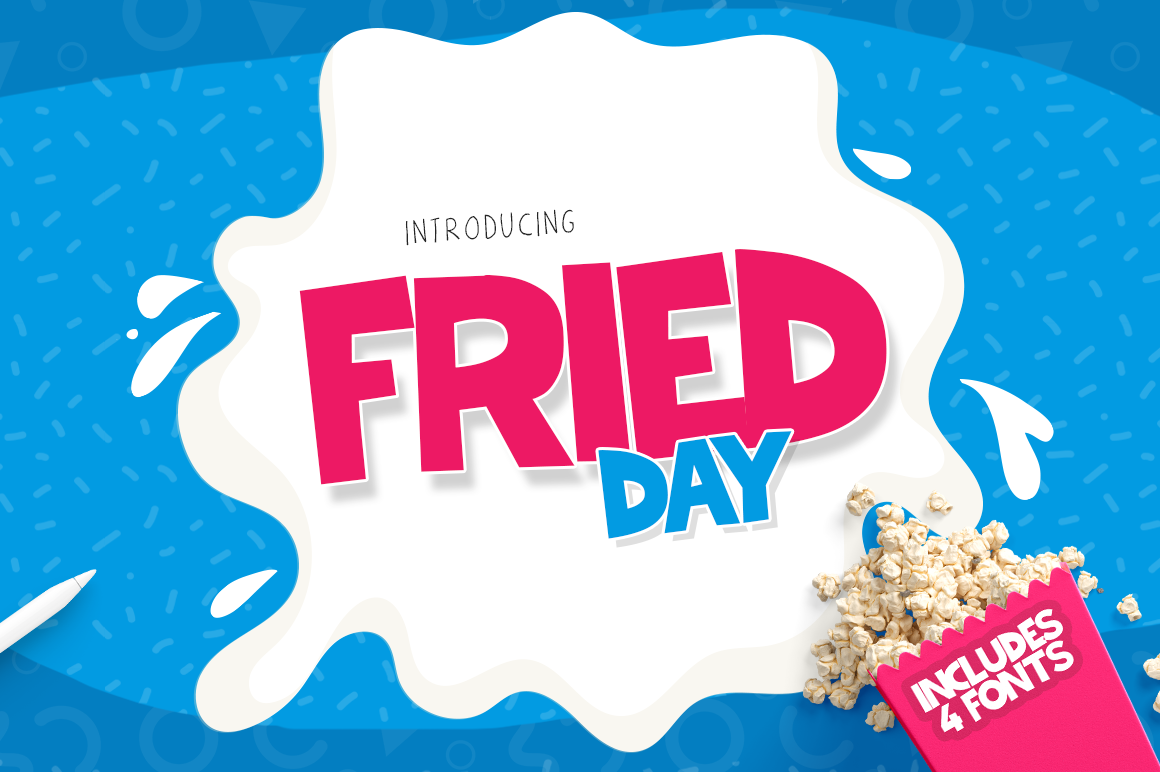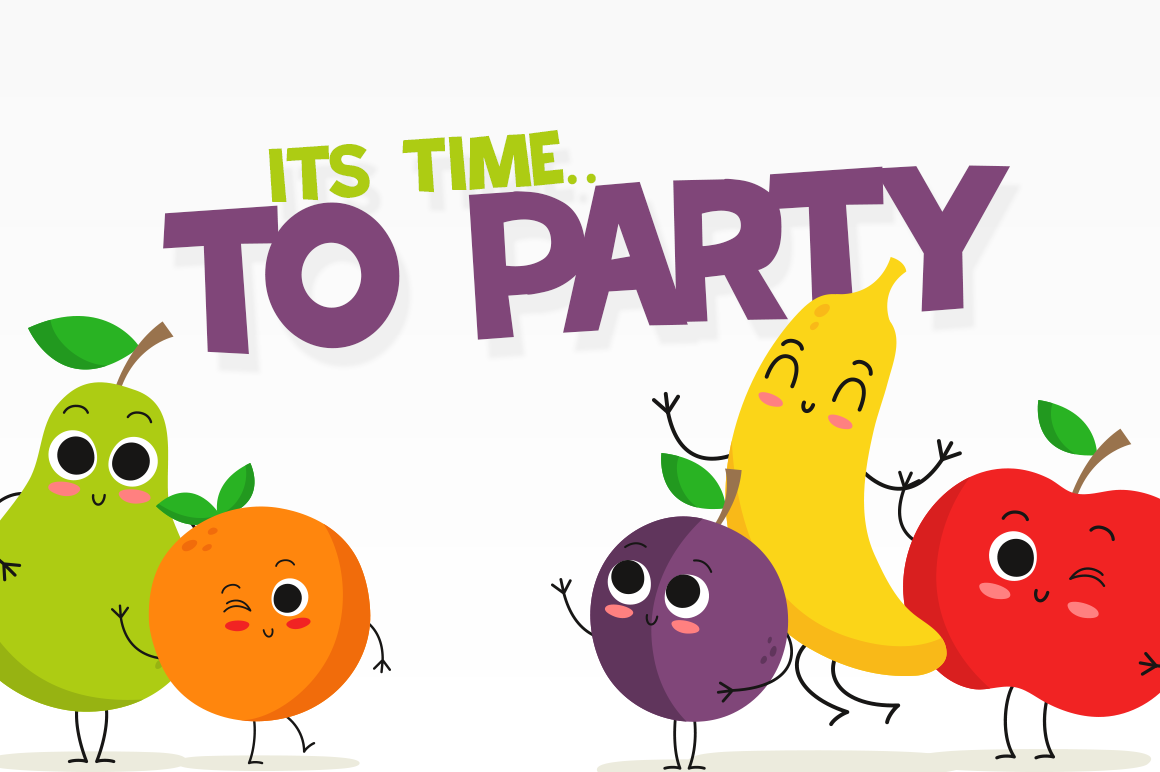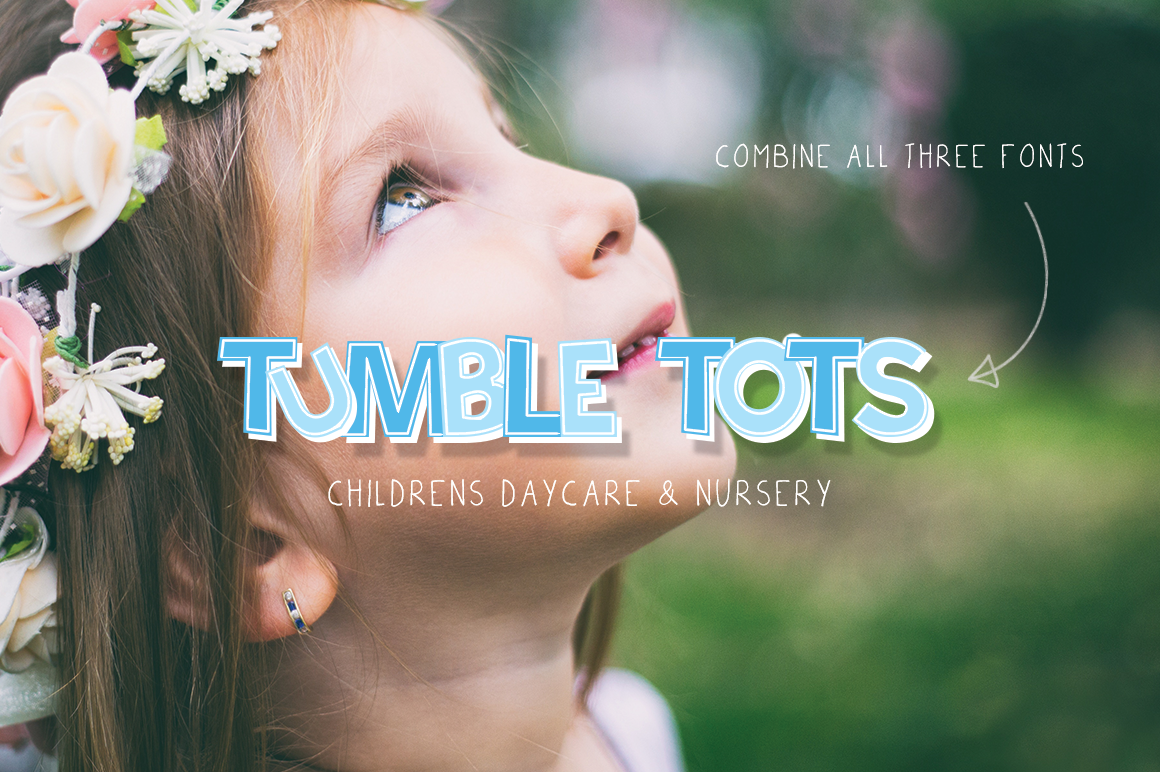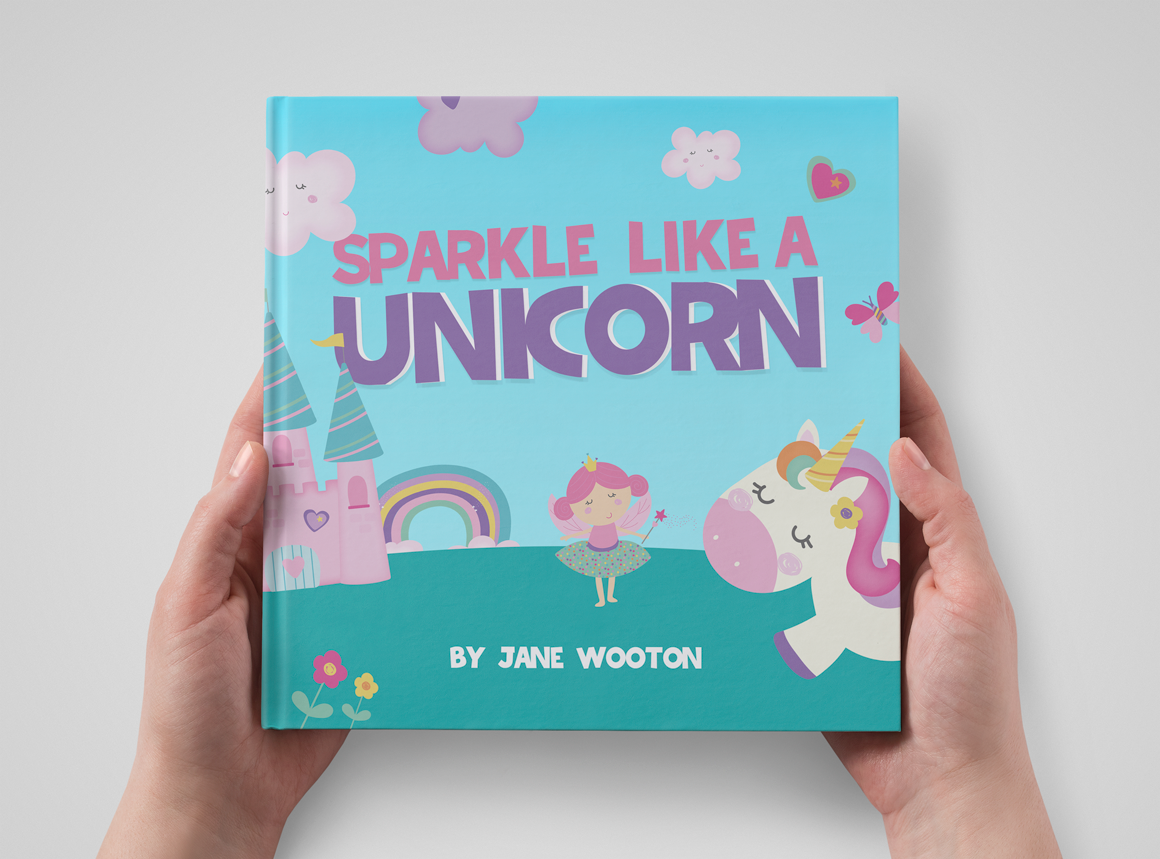
Fried Day Family Font
About the Fried Day Family Font
Welcome to the world of Fried Day Family Font, a typeface that will inspire your next great project. The Fried Day (get it?…Okay yeah, its not that funny) Font family is a brand new trio of fonts. This super cute family can be combined in a range of ways to give you a whole collection of effects for your work. Use the Regular font alone, or layer over the inner or outline fonts for different styles.
Fried Day’s playful personality makes it ideal for headlines, short text blocks on packaging, and eye-catching social media graphics. Its versatility allows for creative layering, adding visual interest to logos and posters. However, the playful nature and relatively thick strokes make it less suitable for body text or UI elements requiring high readability.
This font family pairs well with clean sans-serifs like Open Sans or Lato for a balanced contrast. For a more whimsical feel, consider pairing it with a delicate script font such as Great Vibes. Alternatively, a geometric sans-serif like Montserrat would offer a modern, slightly edgy counterpoint.
The Fried Day family projects a friendly, approachable, and slightly quirky energy, best suited for brands targeting a young, vibrant audience or projects needing a touch of lightheartedness.
Fried Day Family Font Usage Examples
Fried Day Family Font Example